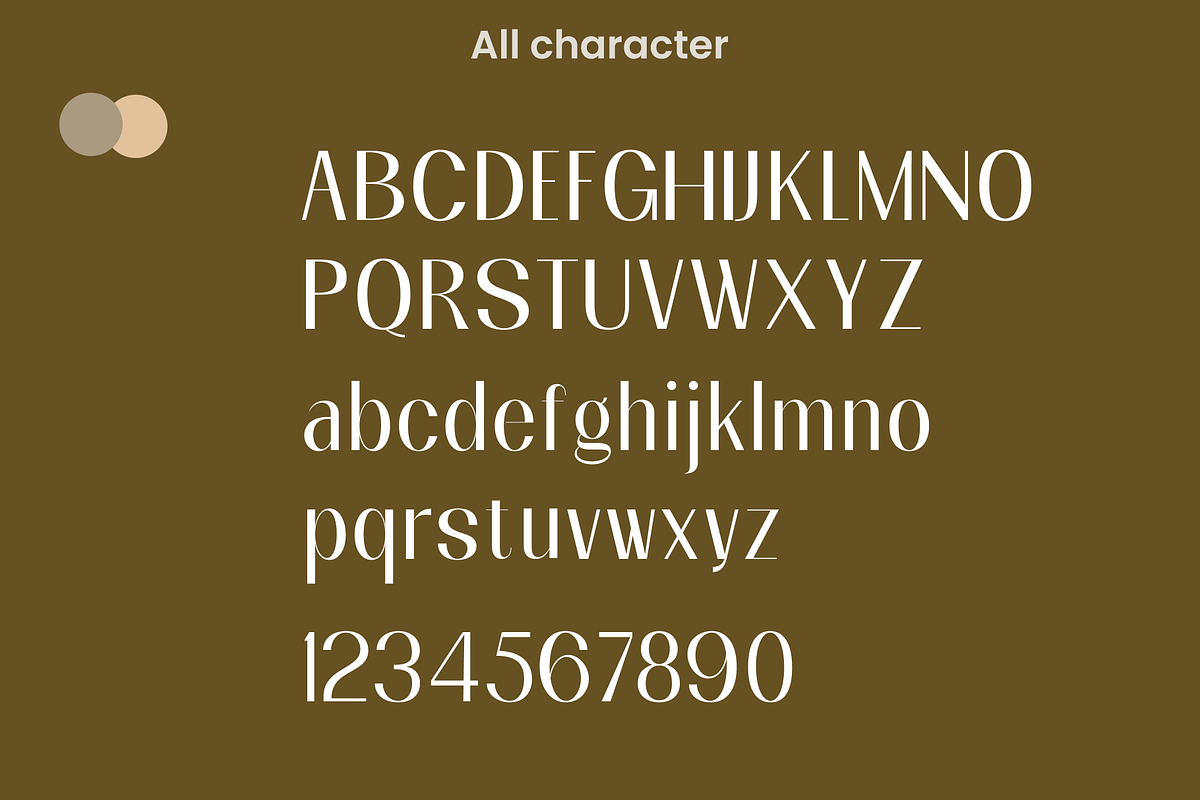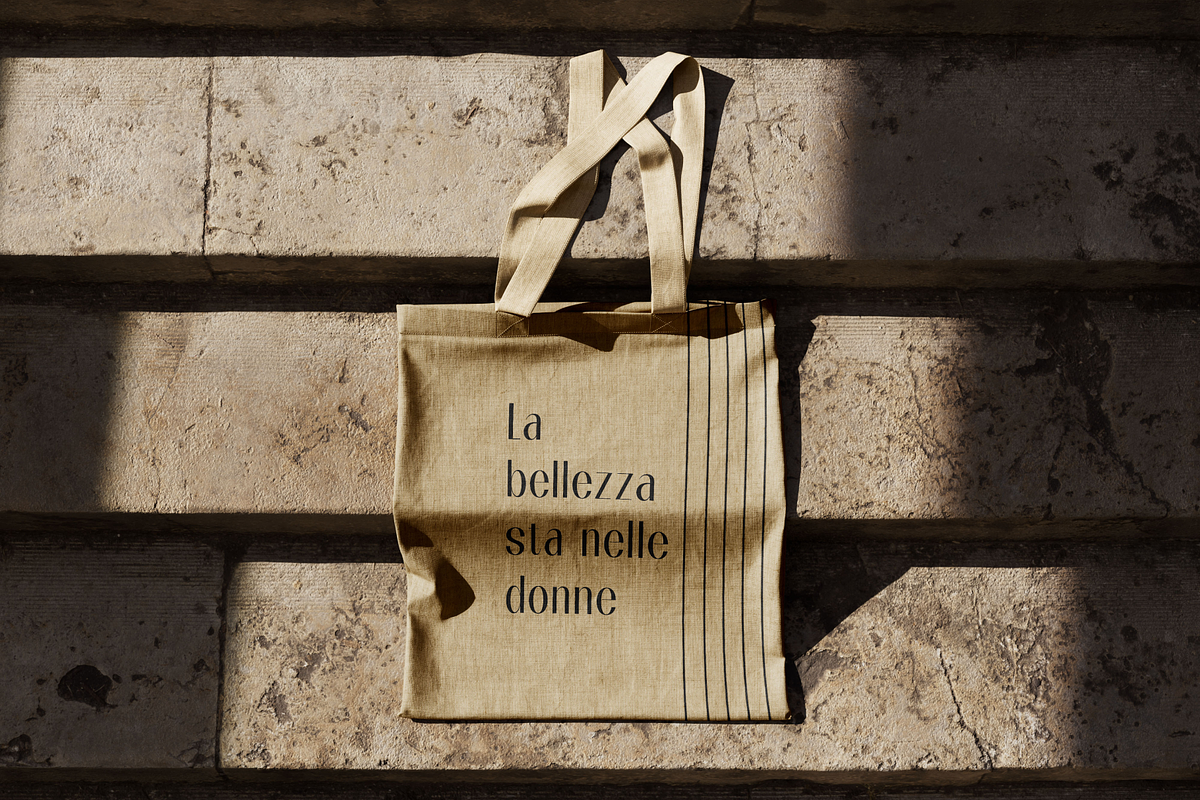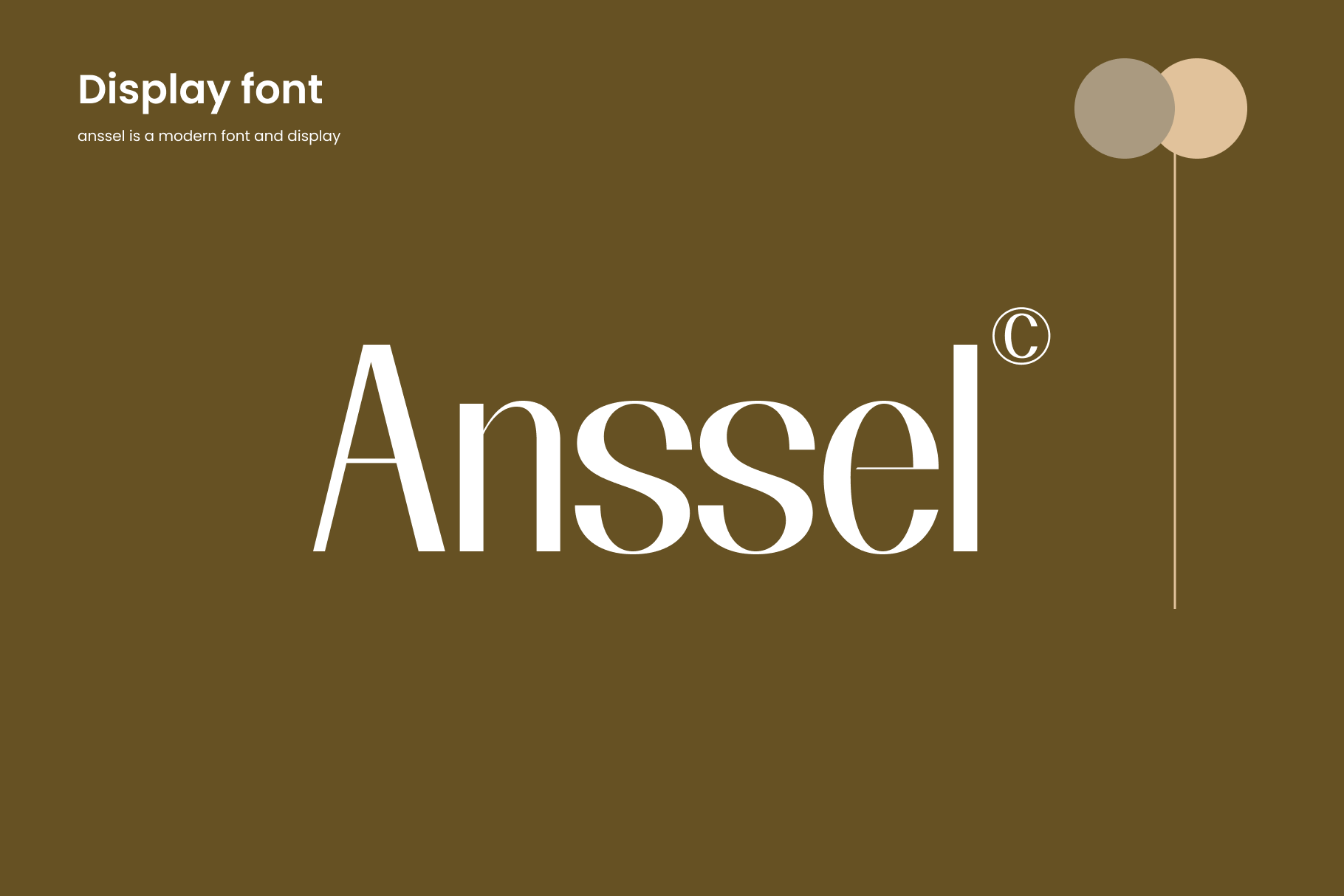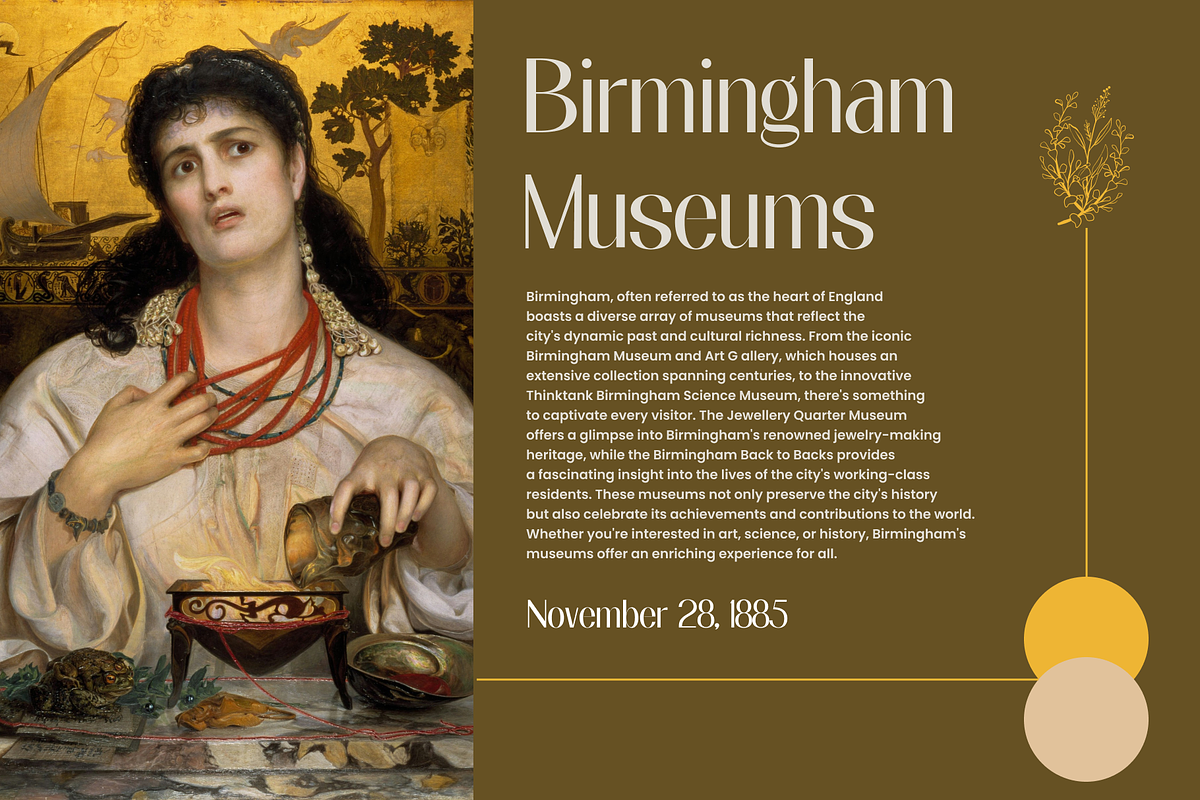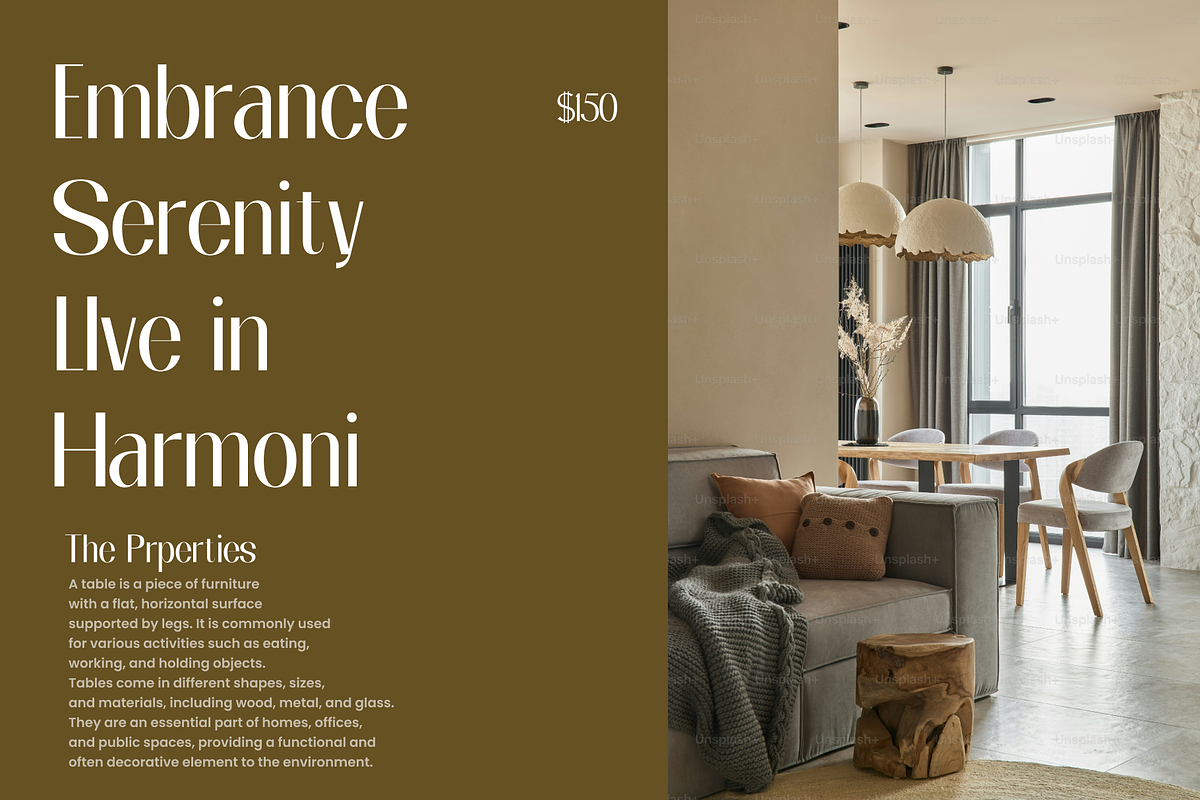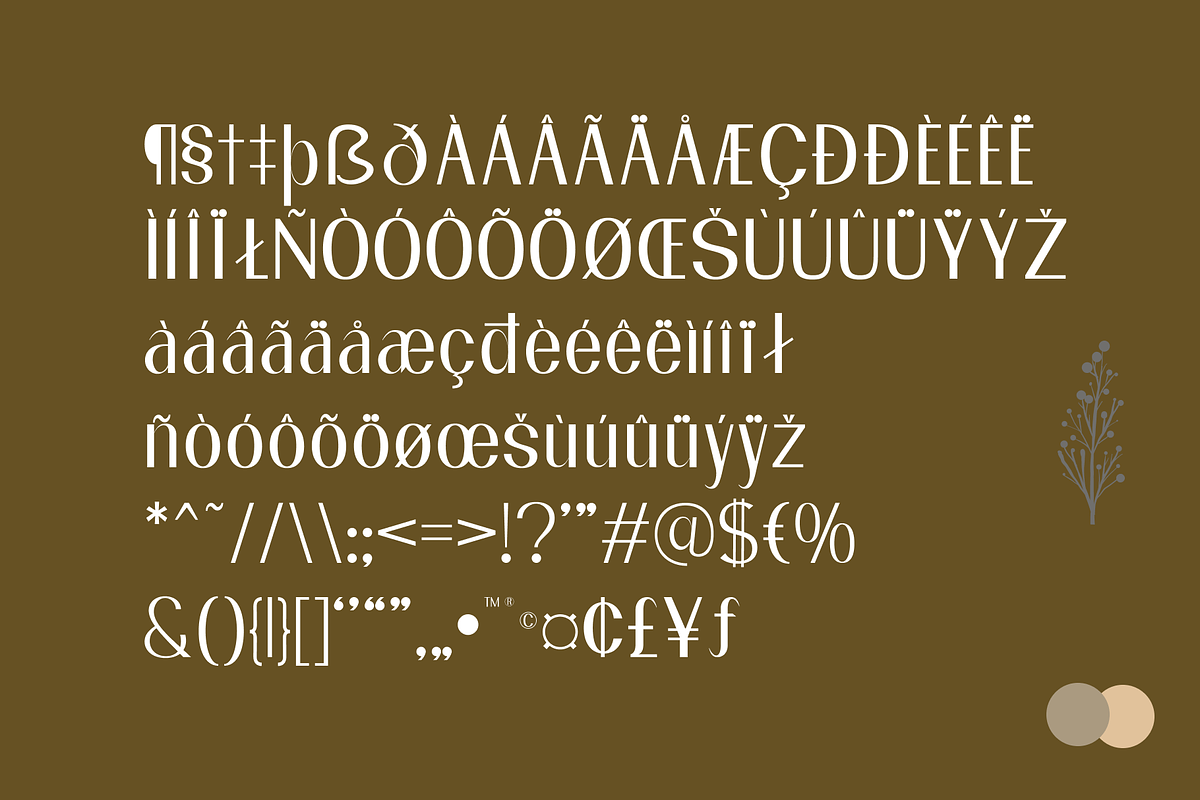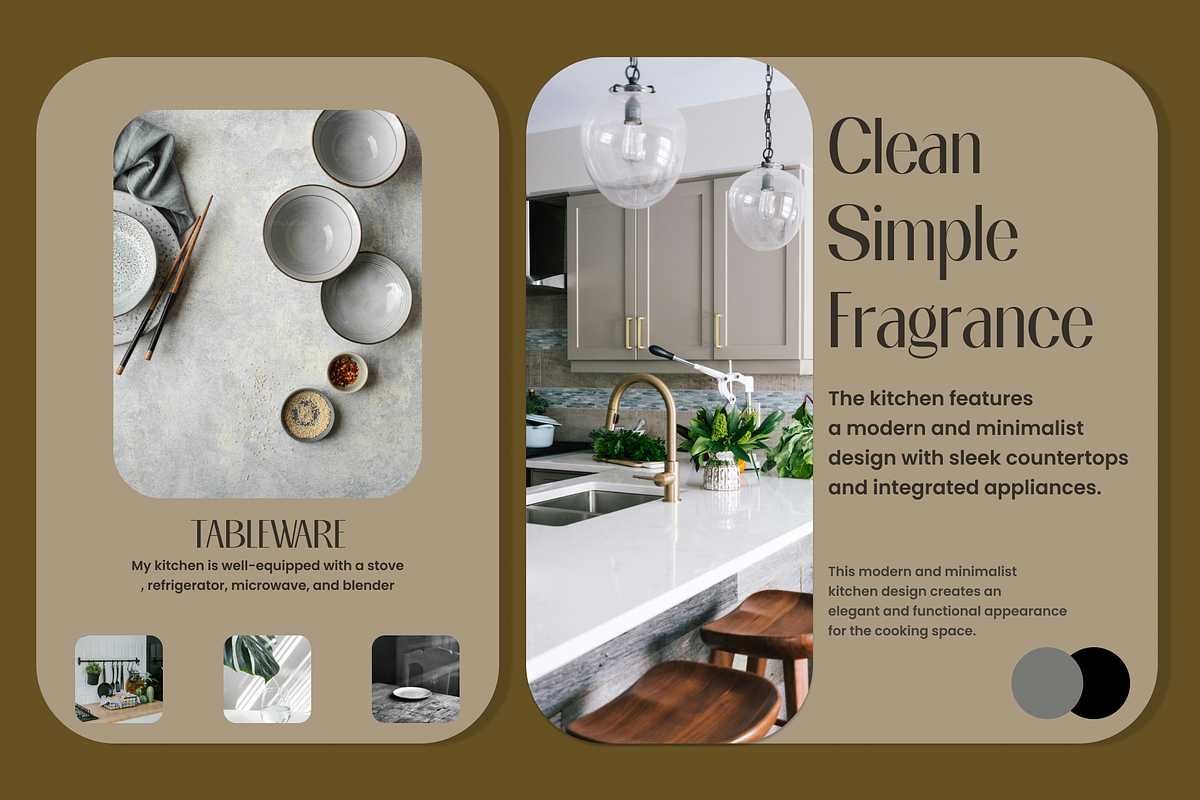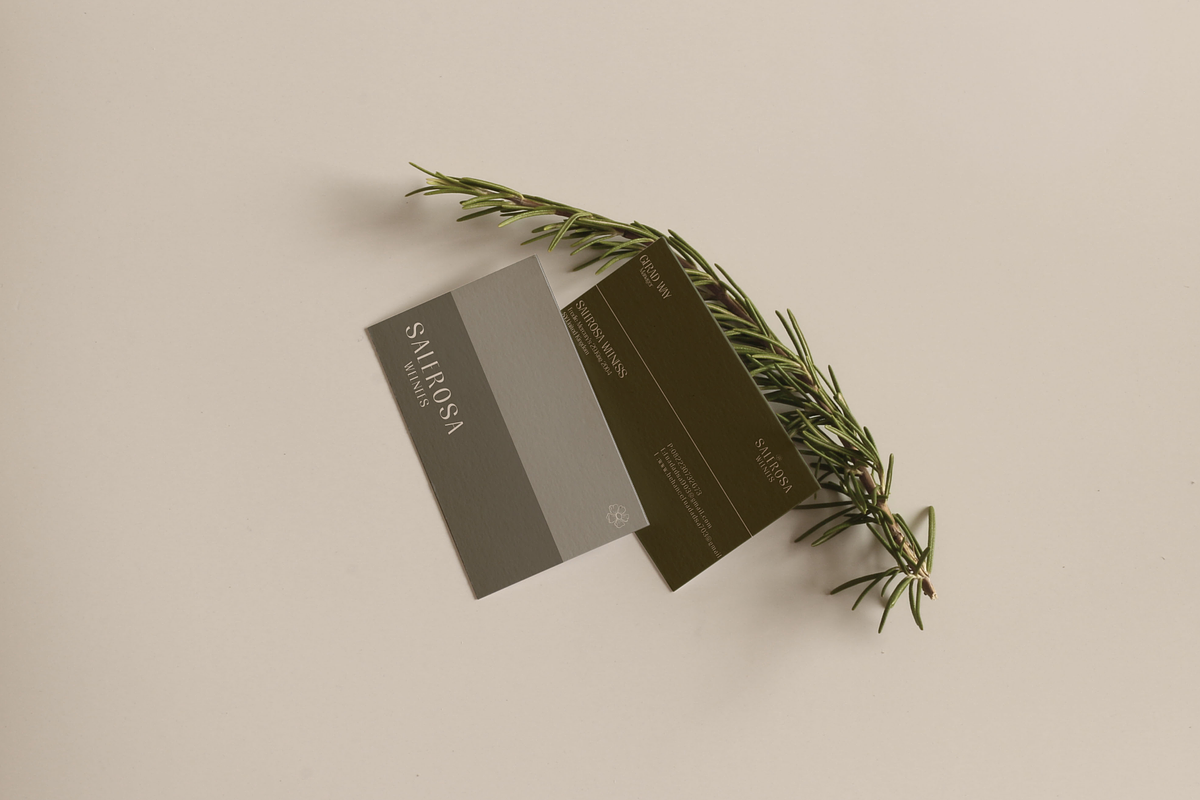
Anssel-Display font
Trendy, bold & modern style serif font for your fancy projects. Elegant, fashion and classic style on Anssel font will be great for any branding project.